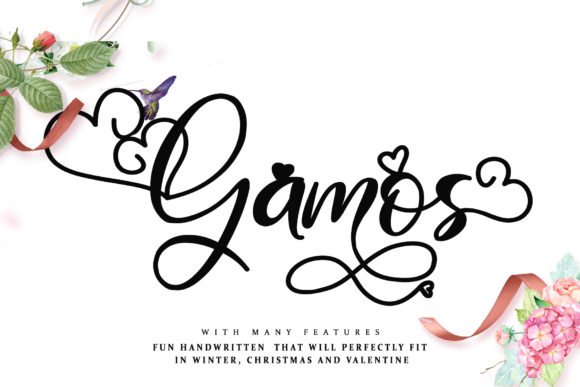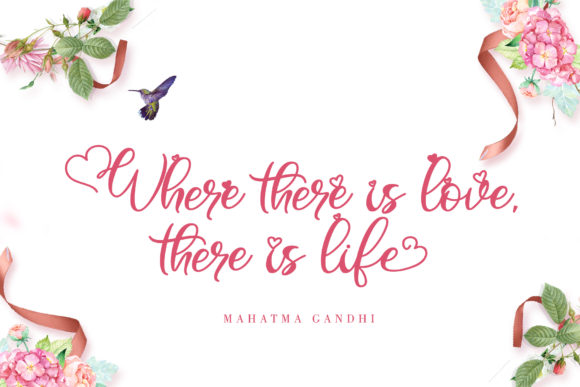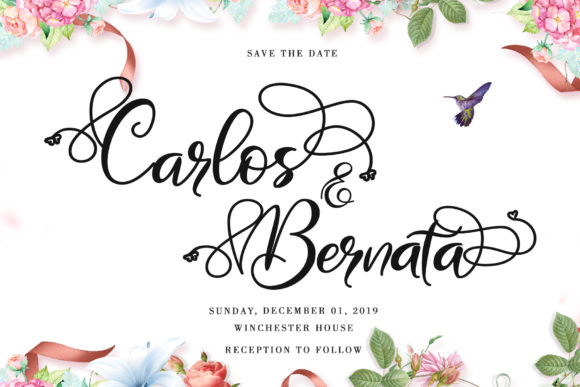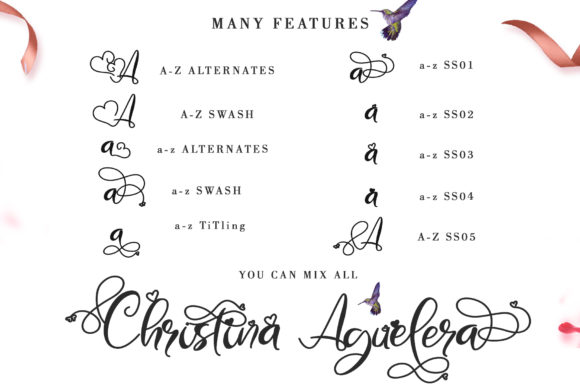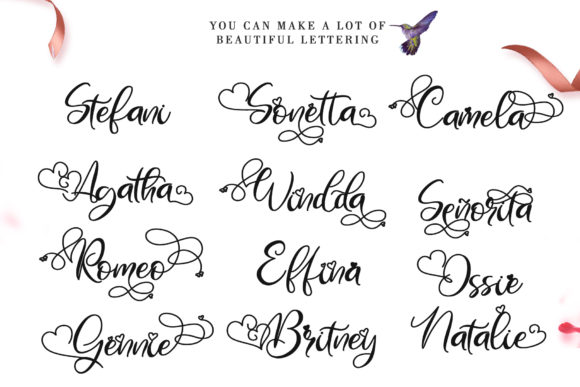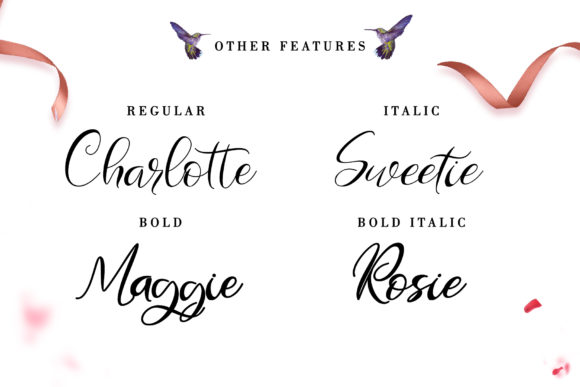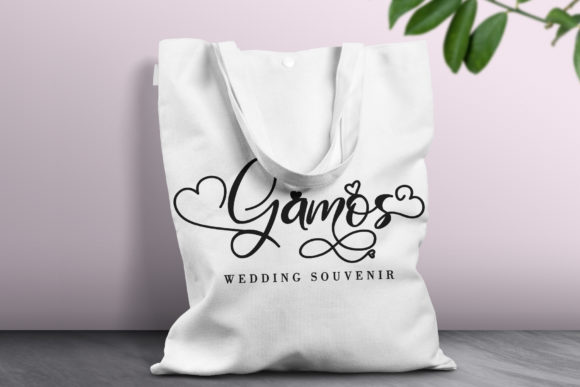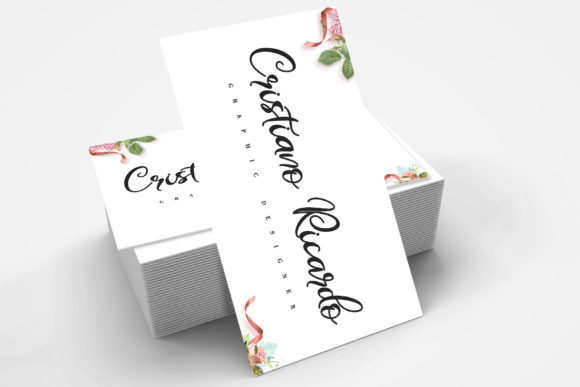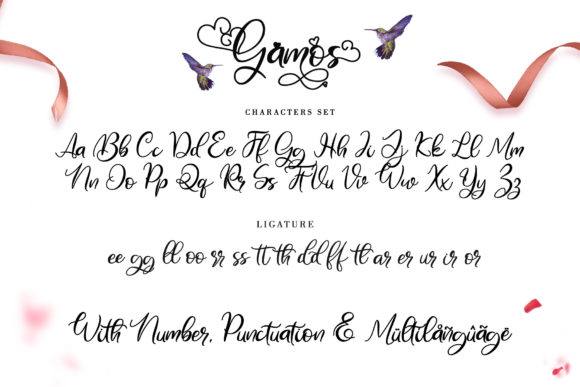
HomeScript FontsGamos Font Script Fonts Gamos Font FacebookXPinterestWhatsApp Gamos Font Poster 2 Gamos Font Poster 3 Gamos Font Poster 4 Gamos Font Poster 5 Gamos Font Poster 6 Gamos Font Poster 7 Gamos Font Poster 8 Gamos Font Poster 9 About Gamos Font Gamos is a the Greek word for marriage, and this font pays a loving homage to all things wedding! DOWNLOAD ON CREATIVE FABRICAThis font is sold and delivered by Creative Fabrica. Font Canyon may earn a commission if you buy through this link. People also explored Bardella Font Baby Dualistic Font Cathedral Marcella Font Shellomita Font Absolute Monogram Font Gobr Font Ryla Font Shopia Bunting Font 388 0 TagsGamos Font Previous articleSigntype FontNext articleWatercolor Font LEAVE A REPLY Cancel reply Comment: Please enter your comment! Name:* Please enter your name here Email:* You have entered an incorrect email address! Please enter your email address here Website: Save my name, email, and website in this browser for the next time I comment. Personal Use Free Concre Personal Use Free Read more about this font Kumadinya Personal Use Free Read more about this font Kitsor Rauttie Personal Use Free Read more about this font Playground Clip Art Personal Use Free Read more about this font BLOG Best Fonts for YouTube Videos: Make Your Thumbnails Stand Out Best Fonts for YouTube Videos: Make Your Thumbnails Stand Out Choosing the right font can make a massive difference in how your YouTube videos perform.... Using Fonts in Digital Marketing: Tips to Strengthen Your Brand Identity Exploring Font Trends Top 7 Google Fonts Alternatives for Faster and Privacy-Friendly Web Design (2025)